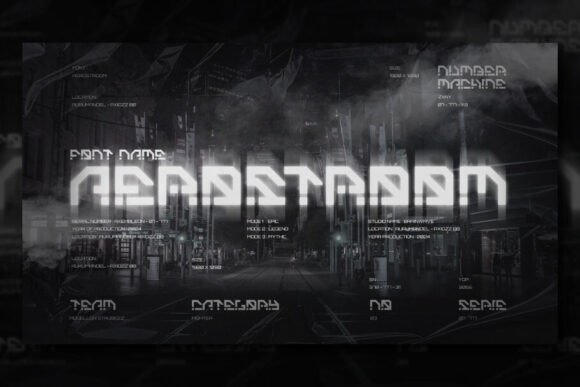
Aerostroom: The Futuristic Typeface for Bold Brand Identity
I remember the exact moment I realized my online boutique needed a serious upgrade. We had great products, but our packaging and social media graphics looked generic. I was staring at a stack of plain thank-you cards and realizing that while our candles smelled amazing, our brand voice felt invisible. That afternoon, I started digging through design resources looking for something that could scream quality without screaming for attention. That is when I discovered Aerostroom, a futuristic cyberpunk display font that completely transformed how we presented our business to the world.
Aerostroom delivers powerful headlines for modern digital ads
When you are running digital ads or updating your website banners, the first thing a customer sees is your headline. Aerostroom steps in here as a game-changer because it brings an immediate sense of energy and innovation to any screen. Unlike standard fonts that blend into the background, this typeface design elevates your project by making every message feel more powerful and inspiring. I tested it on a promotional banner for our limited-edition candle collection, and the difference was night and day. The sharp, angular lines of the letters captured the eye instantly, making the offer look premium and urgent. For small business owners who need to compete with big brands on platforms like Instagram or Facebook, using Display fonts like Aerostroom helps establish authority before a customer even reads the details. It turns a simple sales pitch into a statement of intent.
Aerostroom creates memorable packaging labels for product launches
Physical touchpoints are where trust is built, and nothing says "cheap" like a blurry or mismatched label on a jar or box. When I redesigned our product packaging, I wanted the typography to match the high-quality ingredients inside. Aerostroom proved perfect for headlines on product labels, turning ordinary boxes into collectible items. The futuristic aesthetic gives a sleek, tech-forward vibe that works exceptionally well for beauty brands, tech gadgets, or even artisanal food items looking to stand out on a shelf. By applying this font to our bottle caps and outer cartons, we created a cohesive visual identity that customers immediately recognized. It is not just about making things look cool; it is about ensuring that every time a customer holds your product, they feel confident in their purchase. This level of polish is what separates hobbyist sellers from professional businesses.
Aerostroom enhances editorial design for magazines and menus
Even if you do not sell physical goods, your digital or printed materials need to look authoritative. I recently refreshed our café menu using Aerostroom for the section headers, and the response from our regulars was incredible. The font's unique character adds a layer of sophistication that makes the text feel curated rather than just typed out. Whether you are designing a flyer for a local event, a magazine spread for a niche publication, or a high-end menu for a restaurant, this typeface ensures your content feels expensive. It handles bold statements beautifully, allowing you to use large sizes for maximum impact. The versatility of these Fonts means they can adapt to various layouts without losing their personality, making them ideal for both print and digital editorial projects.
Aerostroom builds consistent branding across websites and billboards
Consistency is the backbone of a strong brand, yet many small businesses struggle to maintain a unified look across different channels. Aerostroom solves this by providing a distinct visual anchor that works equally well on a tiny mobile screen or a massive outdoor billboard. I used the same font family for our website hero image, our email newsletters, and our storefront signage. The result was a seamless experience for our customers, no matter where they encountered us. The futuristic style suggests forward-thinking and reliability, which are crucial traits for building long-term relationships with clients. When potential visitors see your logo or main title on your site, they should feel an instant connection to your brand's values. This font delivers that emotional hook effectively, making your brand feel established and trustworthy.
How to pair Aerostroom for optimal readability and style
While Aerostroom is striking on its own, pairing it correctly is key to maintaining professionalism. Because it is a heavy Display font, it works best when balanced with cleaner, simpler typefaces for body text. I recommend pairing it with a clean sans serif font for descriptions and instructions to ensure legibility, especially on smaller product labels or mobile views. You can also mix it with an elegant serif font to create a contrast between modern edge and classic tradition, which looks fantastic for luxury branding. Avoid using another decorative font alongside it, as this can make your design feel cluttered and hard to read. The goal is to let Aerostroom shine as the star of the show while your supporting text does the heavy lifting of communication.
Why investing in premium Display Fonts changes your business perception
Choosing the right typography is one of the highest ROI decisions a small business owner can make. Aerostroom is not just a set of characters; it is a strategic asset that communicates quality and attention to detail. When you use a font that looks professionally designed, your customers subconsciously assume your products and services are of equal caliber. It eliminates the "DIY" look that often holds back entrepreneurs from charging premium prices. By integrating this futuristic cyberpunk style into your marketing materials, you signal that your business is innovative and up-to-date. Whether you are launching a new line, rebranding an existing shop, or simply trying to look more polished, having access to high-quality Fonts like Aerostroom gives you the competitive edge you need to succeed in a crowded market.